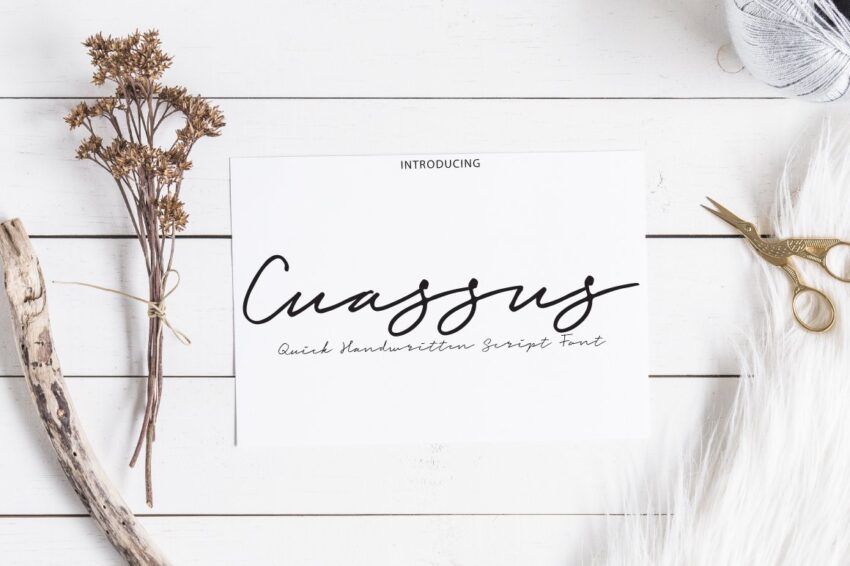
Introduction to Cuassus Font
Cuassus is a font created to add some personality to your designs.
It works great for invites, birthday & Christmas cars and other projects that need a personal touch .
Cuassus Font offers exceptional quality and versatility, making it a valuable addition to your design toolkit. Whether you’re creating for personal projects or commercial use, Cuassus Font delivers professional results.